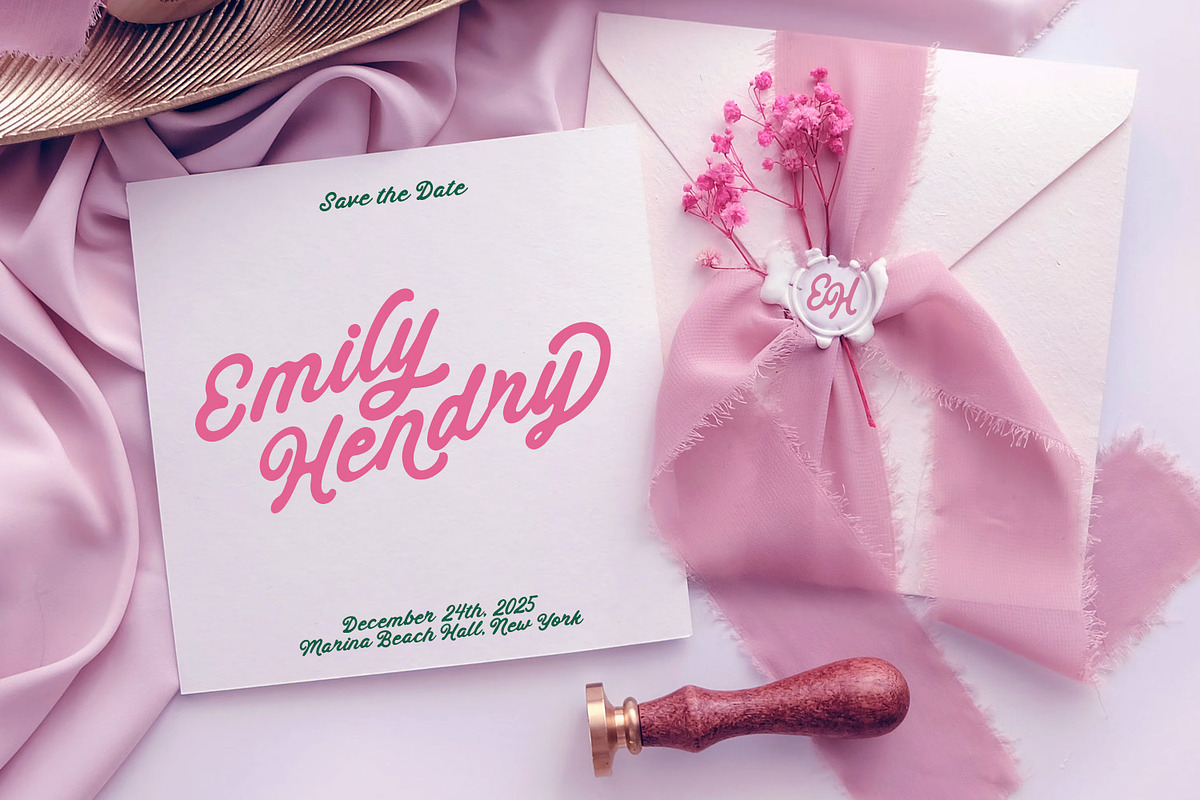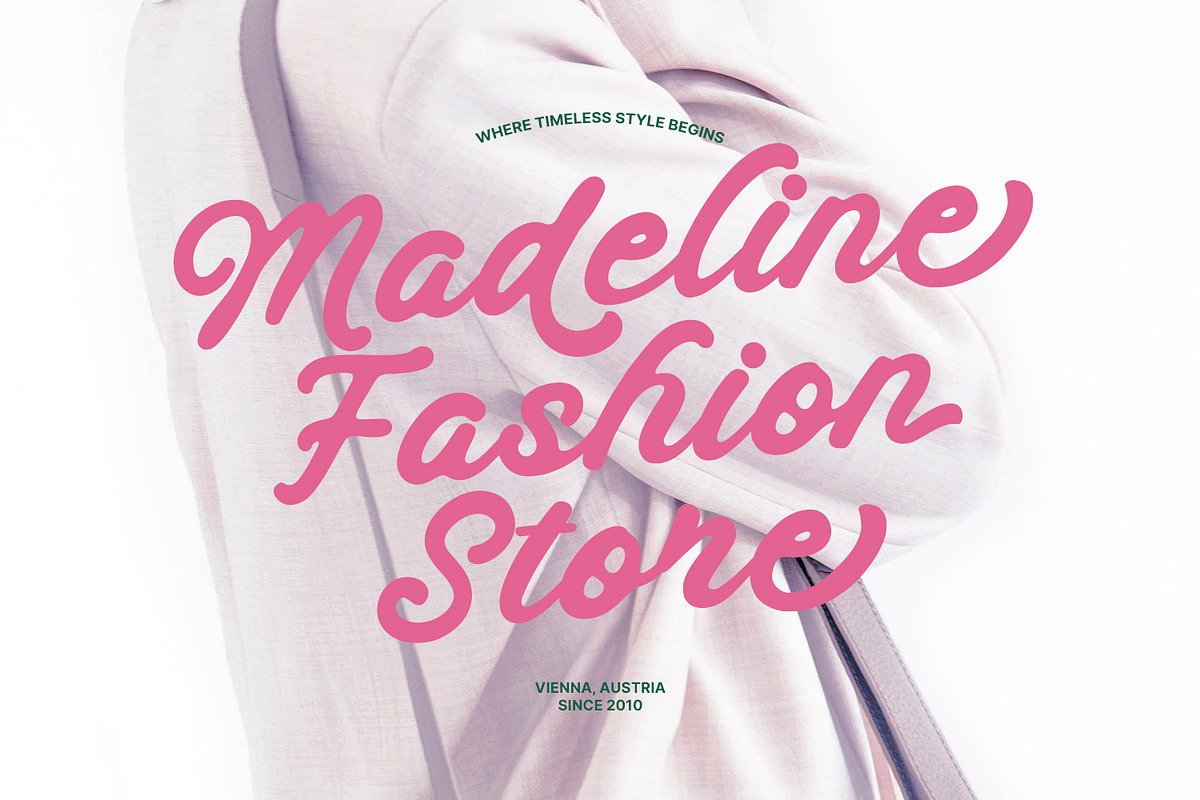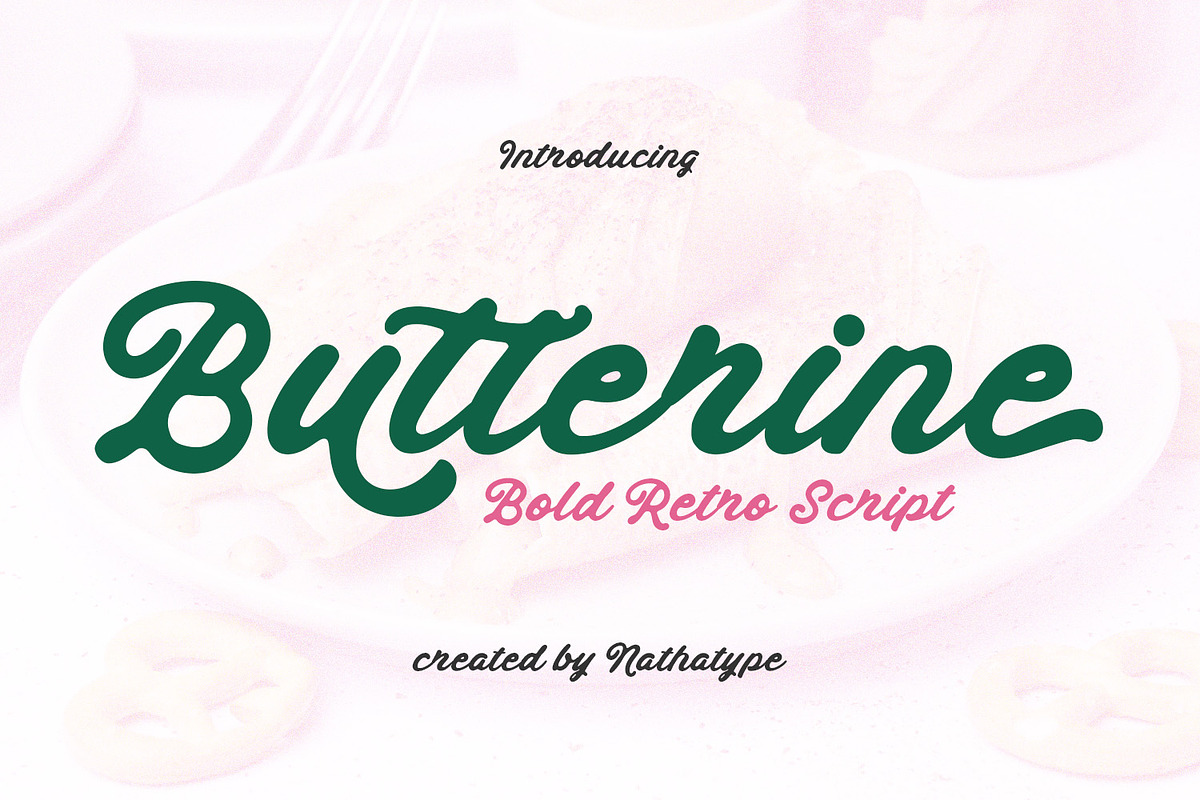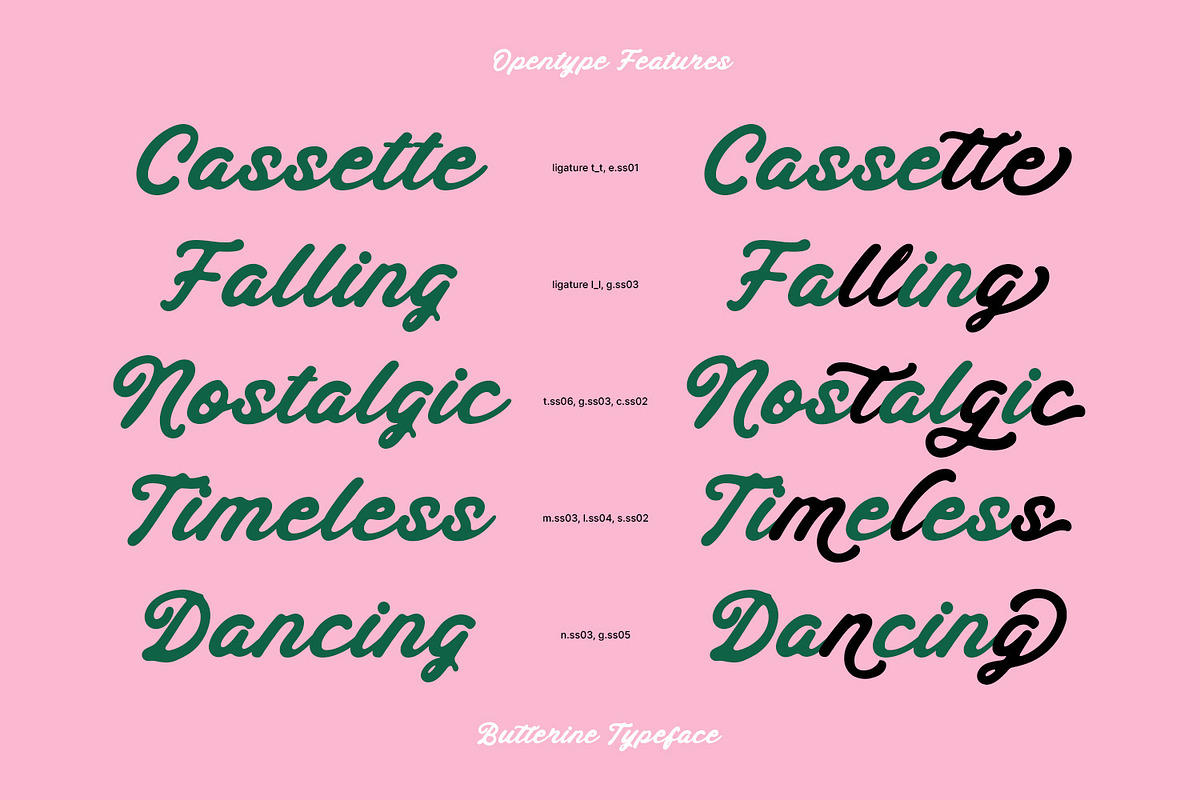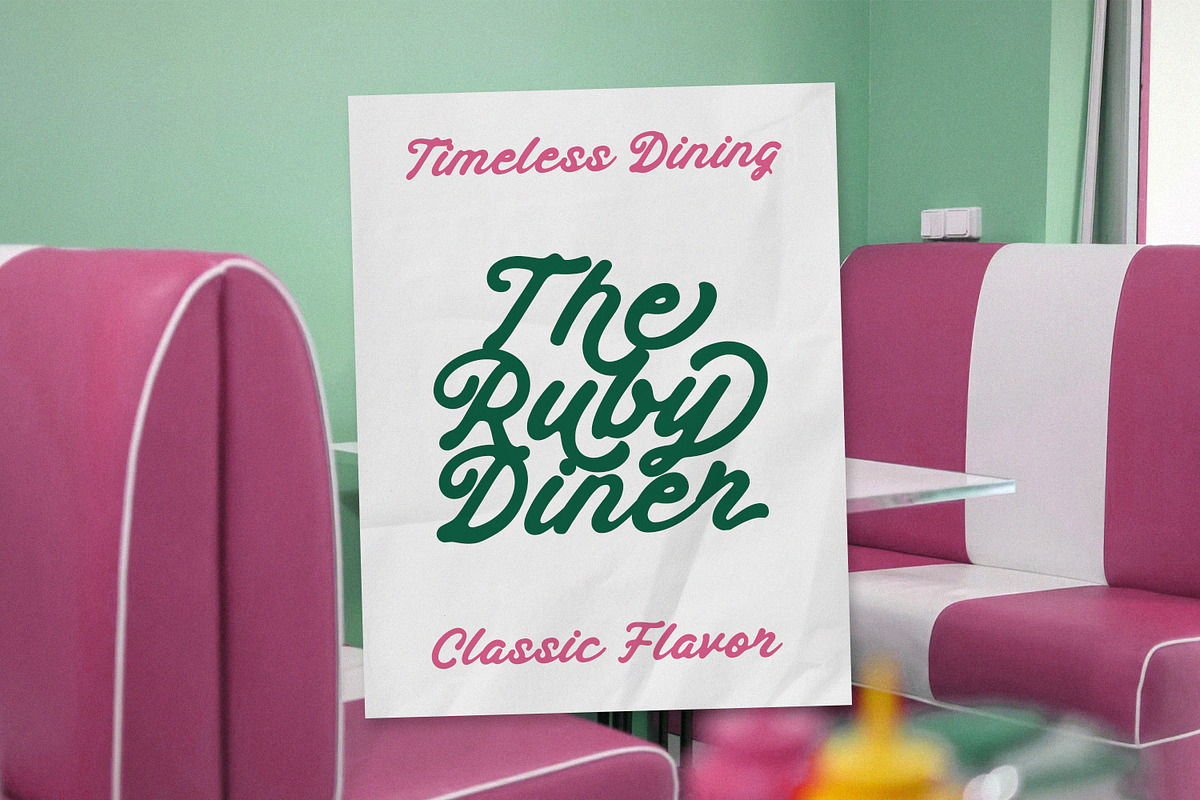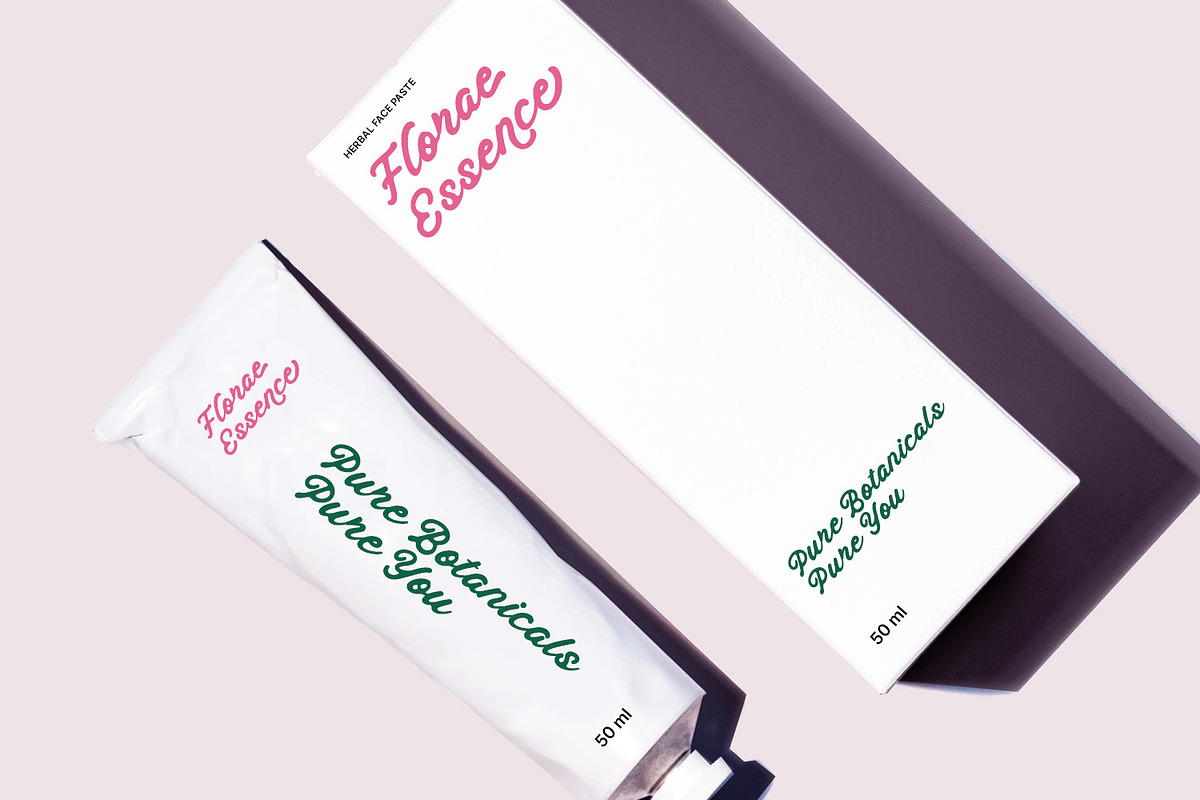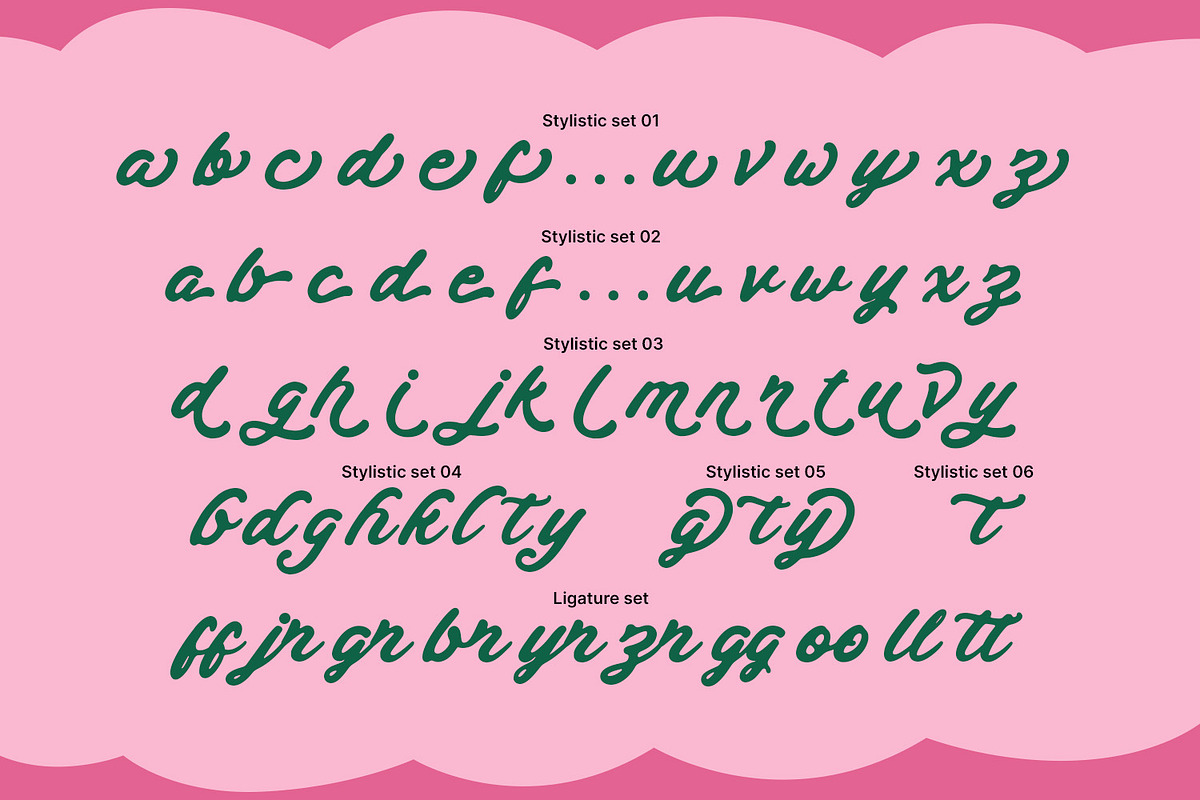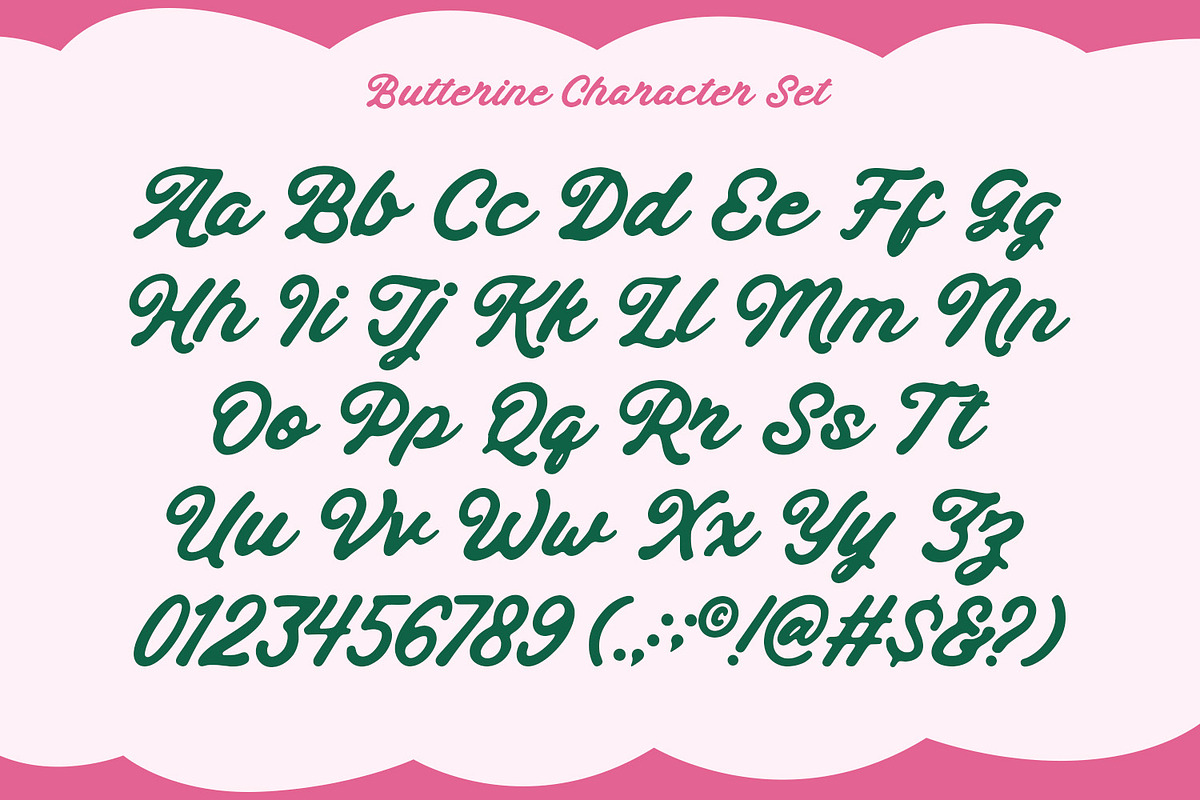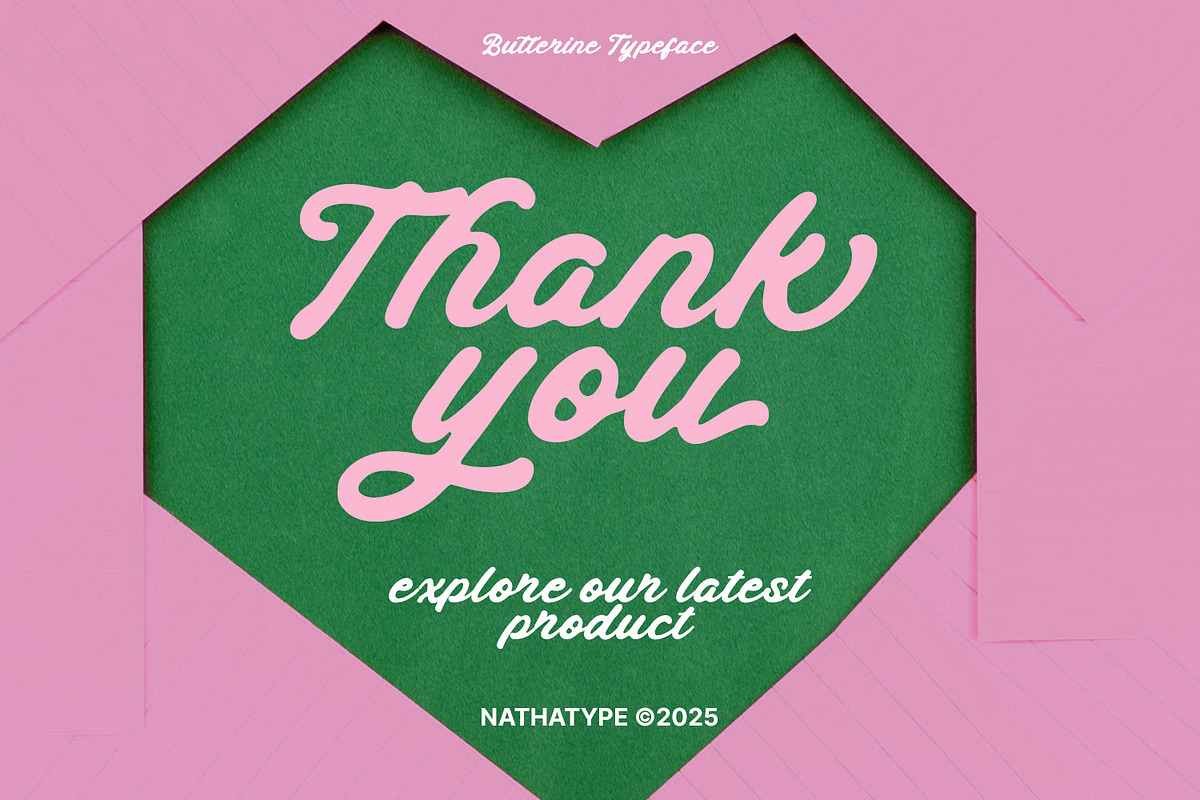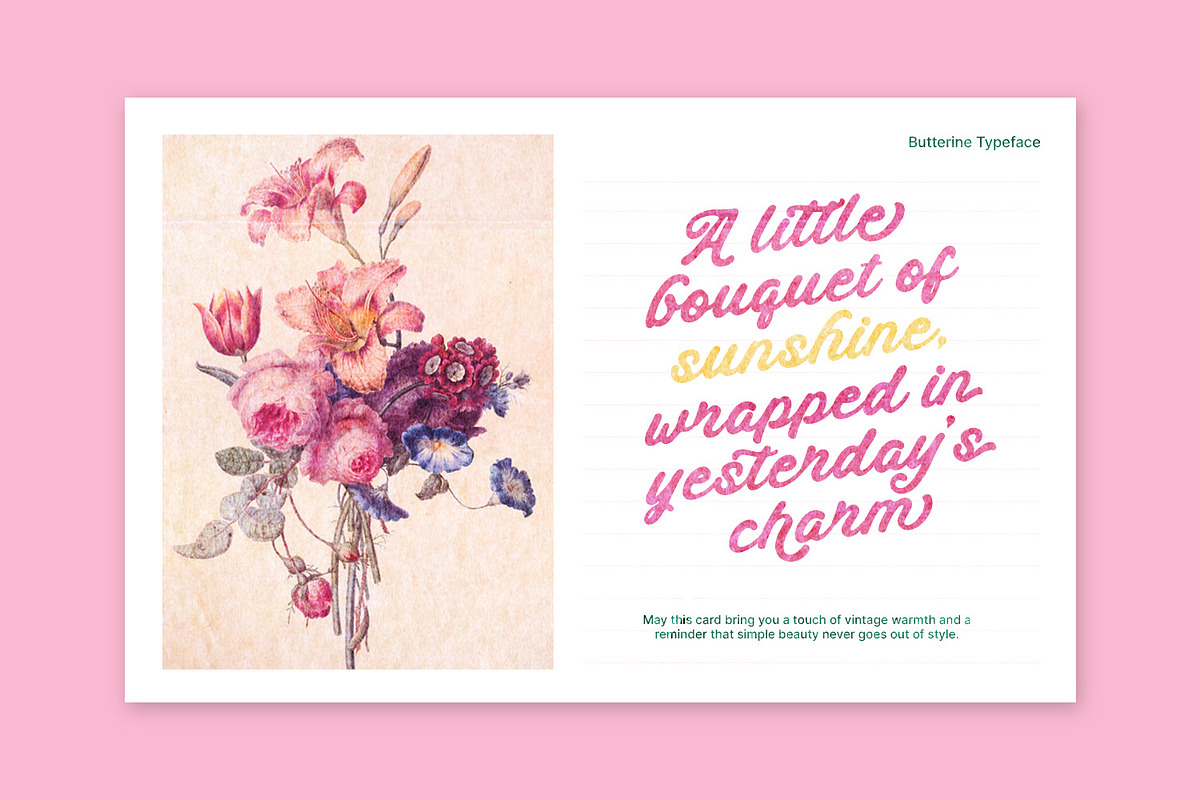
Butterine
Butterine is a retro script font designed to bring timeless charm and confident personality to your typography. Inspired by classic retro signage, old-school advertising, and hand-painted scripts, Butterine shows rounded curves and continuous strokes that create a natural handwritten flow. The low contrast design keeps the letterforms cohesive and clean, while the bold strokes ensure excellent visibility and impact. In addition, enjoy the features here.
- Stylistic Sets
Butterine fits in logos, quotes, invitations, branding, posters, and many more designs. Find out more ways to use this font by taking a look at the font preview.